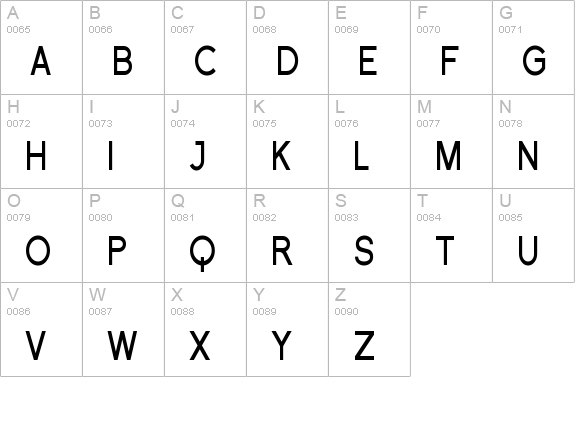
Florencesans SC Cond Bold is a strong, high-contrast, condensed-width variant in the Florencesans typeface family \xE2\x80\x94 well suited to headlines, attention-grabbing titles, and strong calls-to-action.
Florencesans SC Cond Bold is a modern and stylish typeface that exudes confidence and sophistication. With its condensed form and bold weight, this font is perfect for making a statement in headlines, titles, and branding materials. The sleek and clean design of Florencesans SC Cond Bold adds a touch of elegance to any project. Best of all, Florencesans SC Cond Bold is available for free download at FontsMarket.com. Whether you're a designer looking for a striking font to elevate your work or a business owner in need of a strong visual identity, Florencesans SC Cond Bold is the perfect choice. Download this versatile and eye-catching font today and make your designs stand out from the crowd.